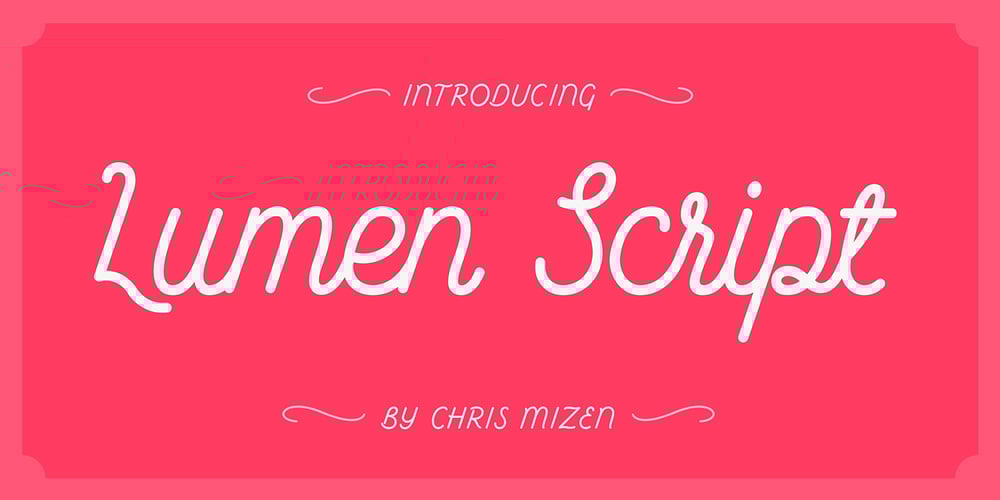
Lumen Script Font Family was designed by Chris Mizen and published by Chris Mizen. Lumen Script contains 5 styles and family package options. Lumen Script is a contemporary monoline script display face. Combining the loops and swashes from the fanciest of hand painted scripts, with the consistencies of shape and form from the most regimented of sans, Lumen Script is a fresh and unique take on the ever popular script typeface. To get the most out of Lumen Script, make sure you have Contextual Alternates and Standard Ligatures turned on in your Opentype menu. Lumen Script also has a set of small caps, designed to sit comfortably alongside the standard letters, allowing you to change your tone without changing typeface. Lumen Script is also versed in multiple languages, with many accented characters included.